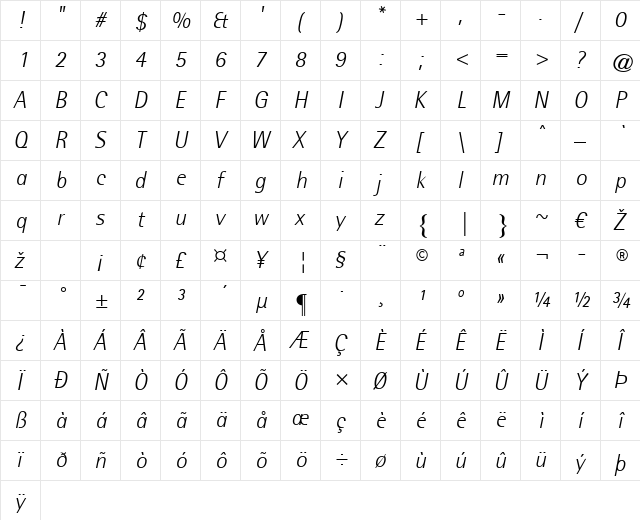
Agfa Rotis Semisans Light Italic Font Preview
Design Context for Agfa Rotis Semisans Light Typeface
Agfa Rotis Semisans Light offers clean, dependable letterforms without strong stylistic allegiance, making it a practical choice for designers who need flexibility. The dynamic lean of this cut emphasises speed and emphasis in any layout. Its slender proportions lend an understated elegance to any composition.
Pro Tip: Try Agfa Rotis Semisans Light for annotation and caption copy alongside an upright companion — the contrast in angle creates a dynamic but ordered typographic system.